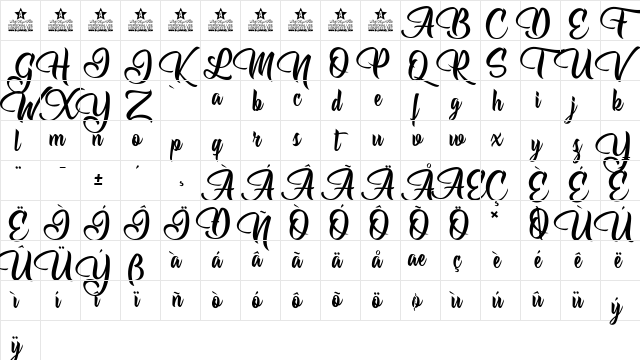
Allessa Personal Use Regular
Foundry: Billy Argel
Designer: Billy Argel
Design Context for Allessa Personal Use
Allessa Personal Use is a composed and adaptable typeface that performs quietly and consistently across a wide range of design contexts.